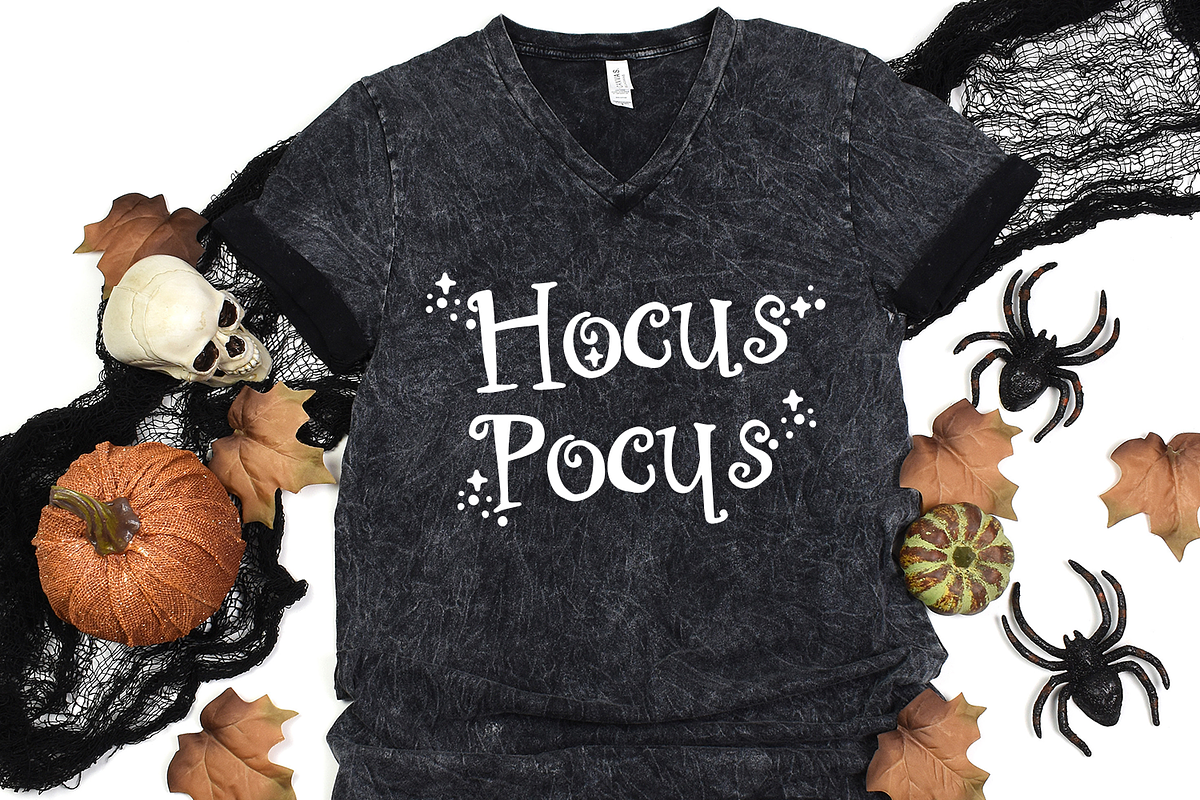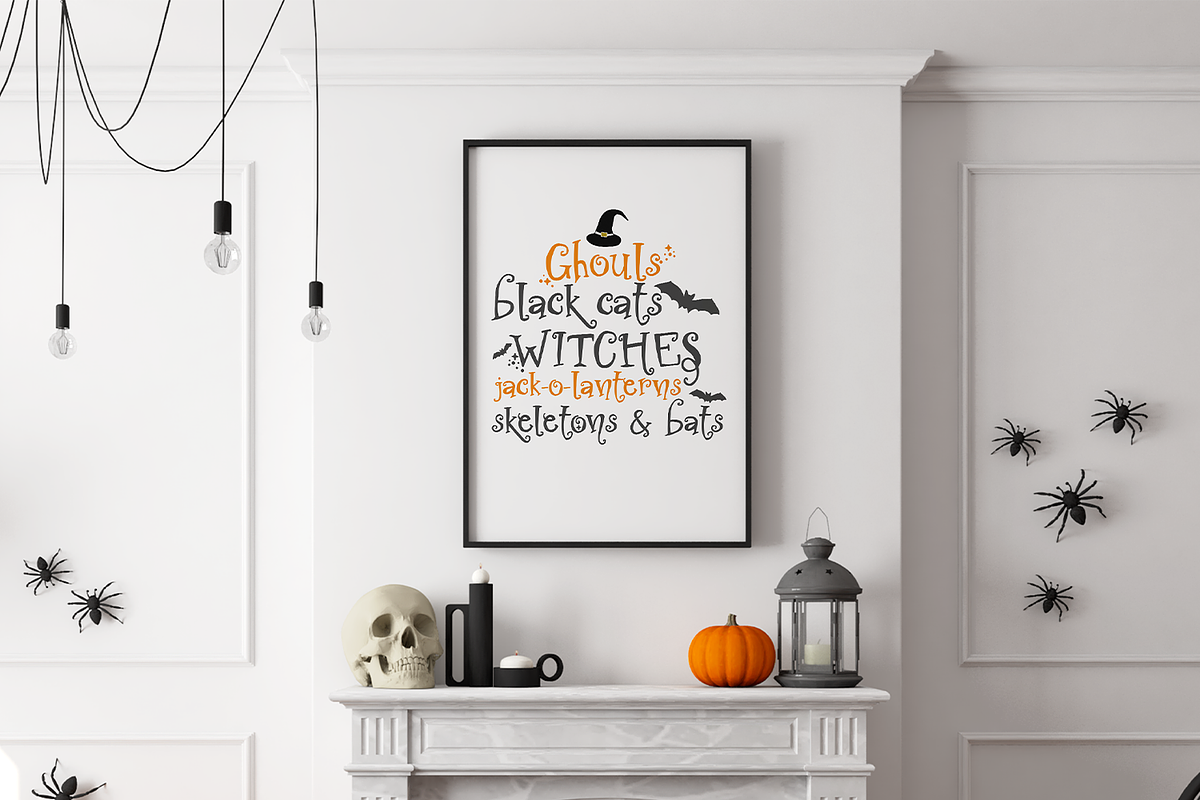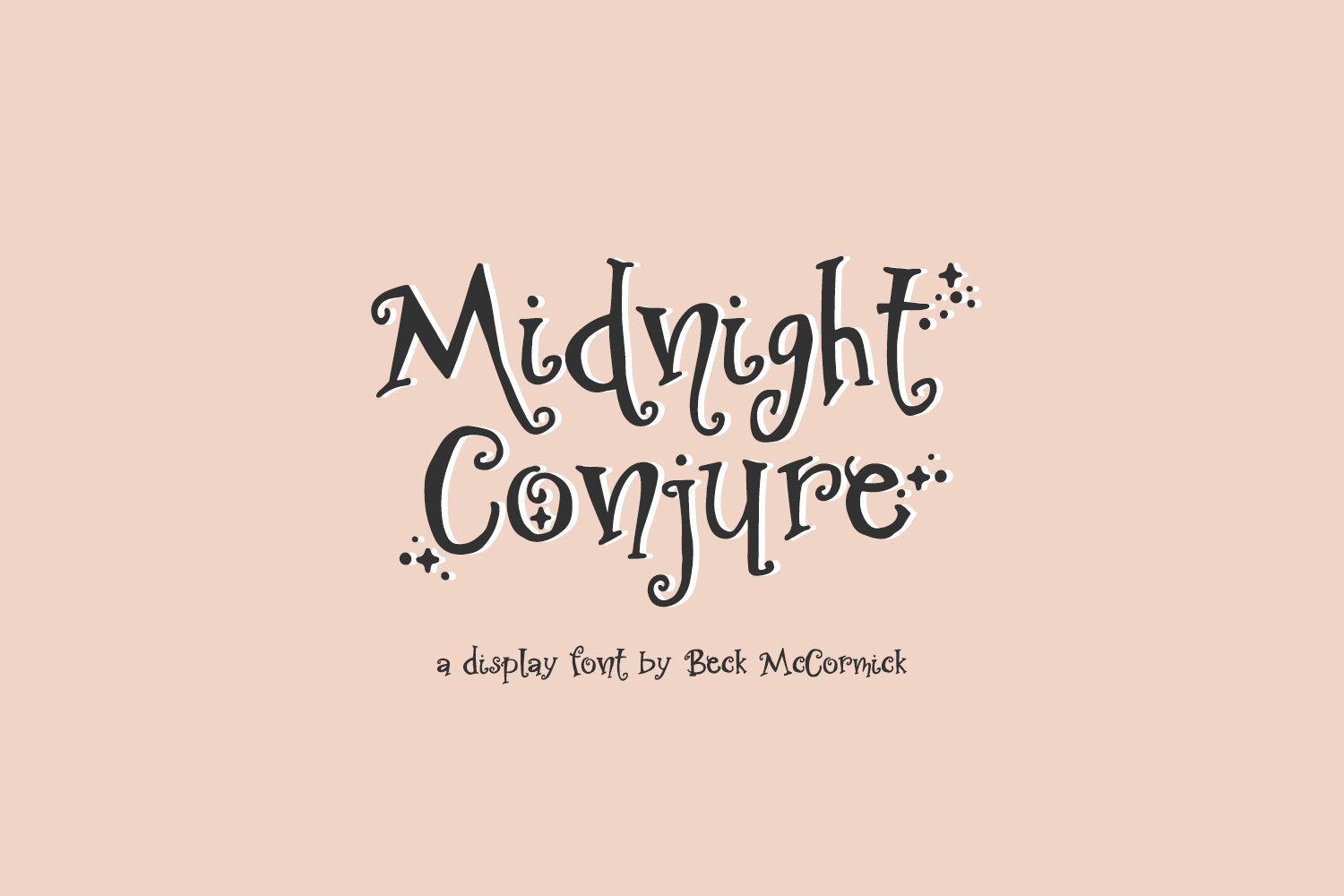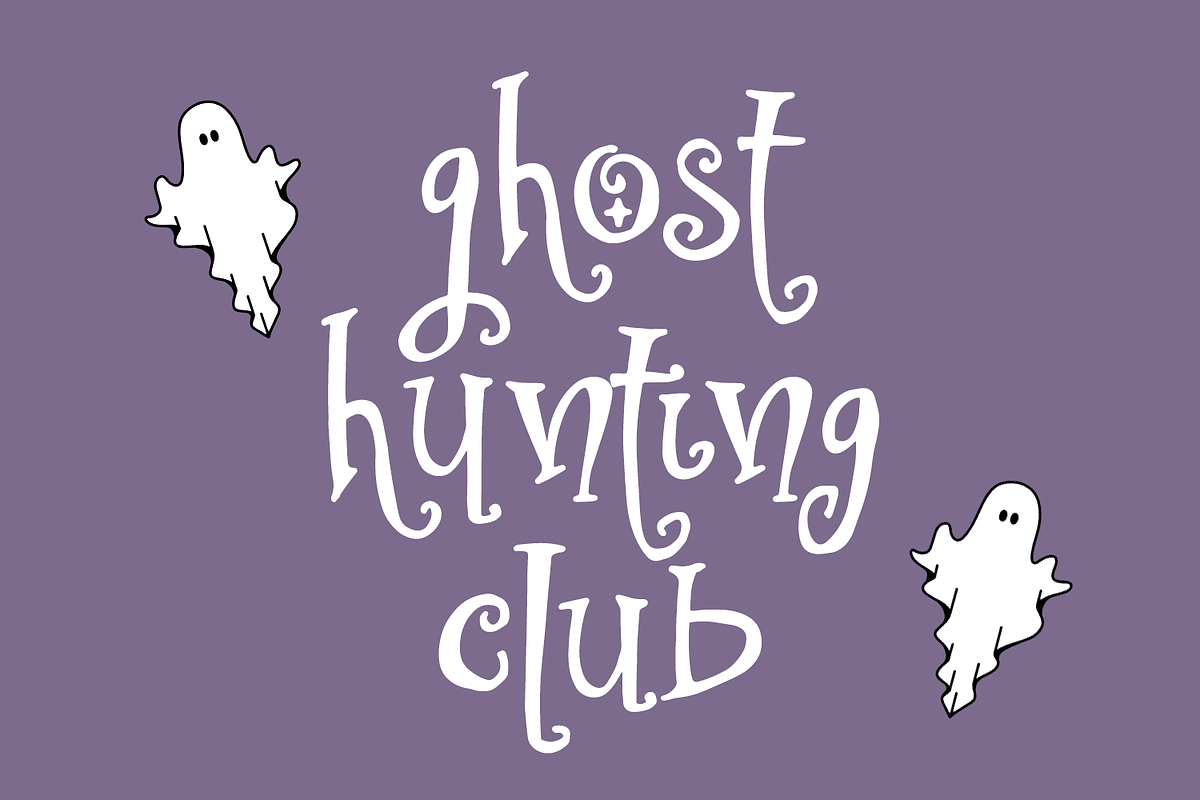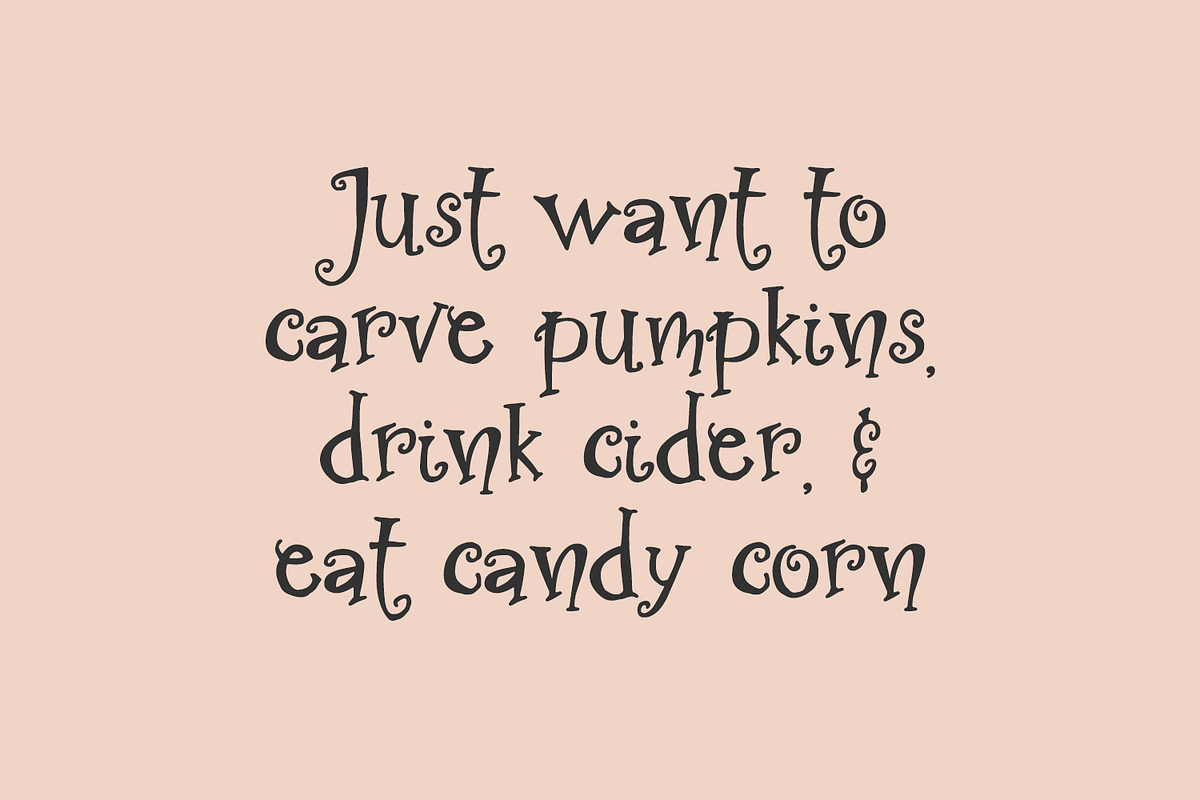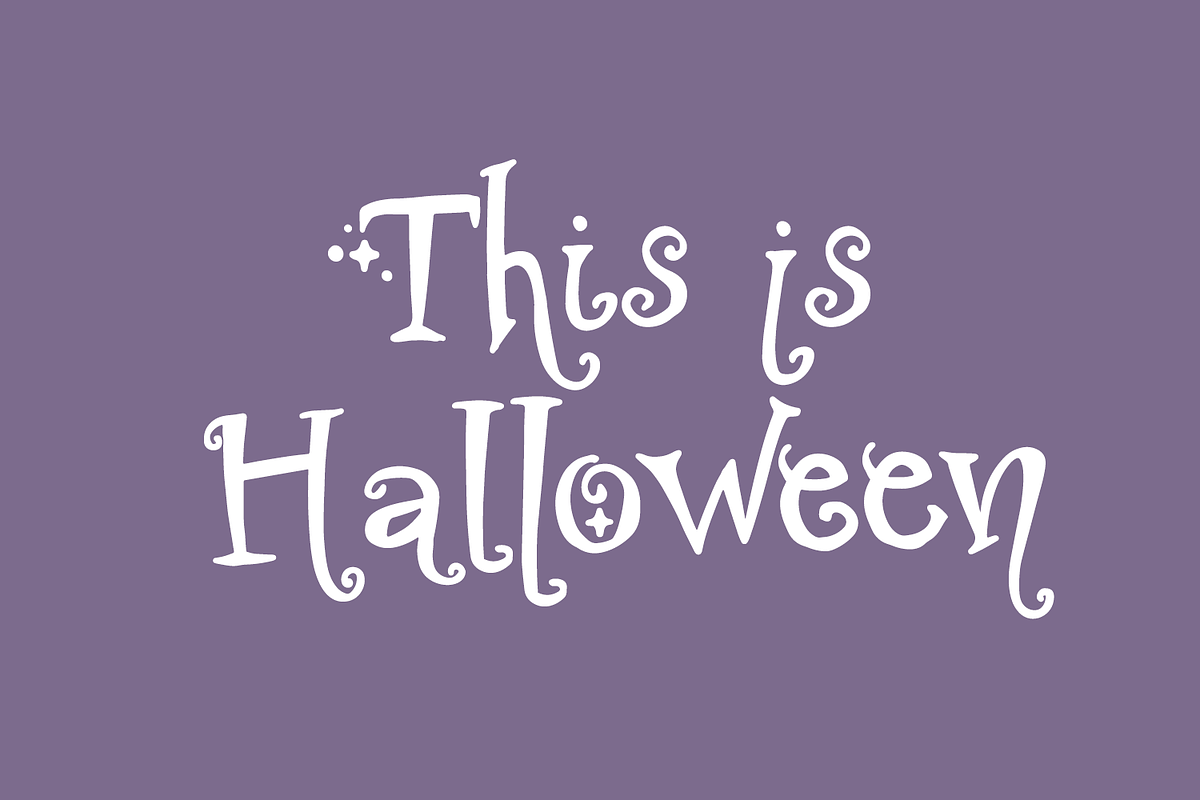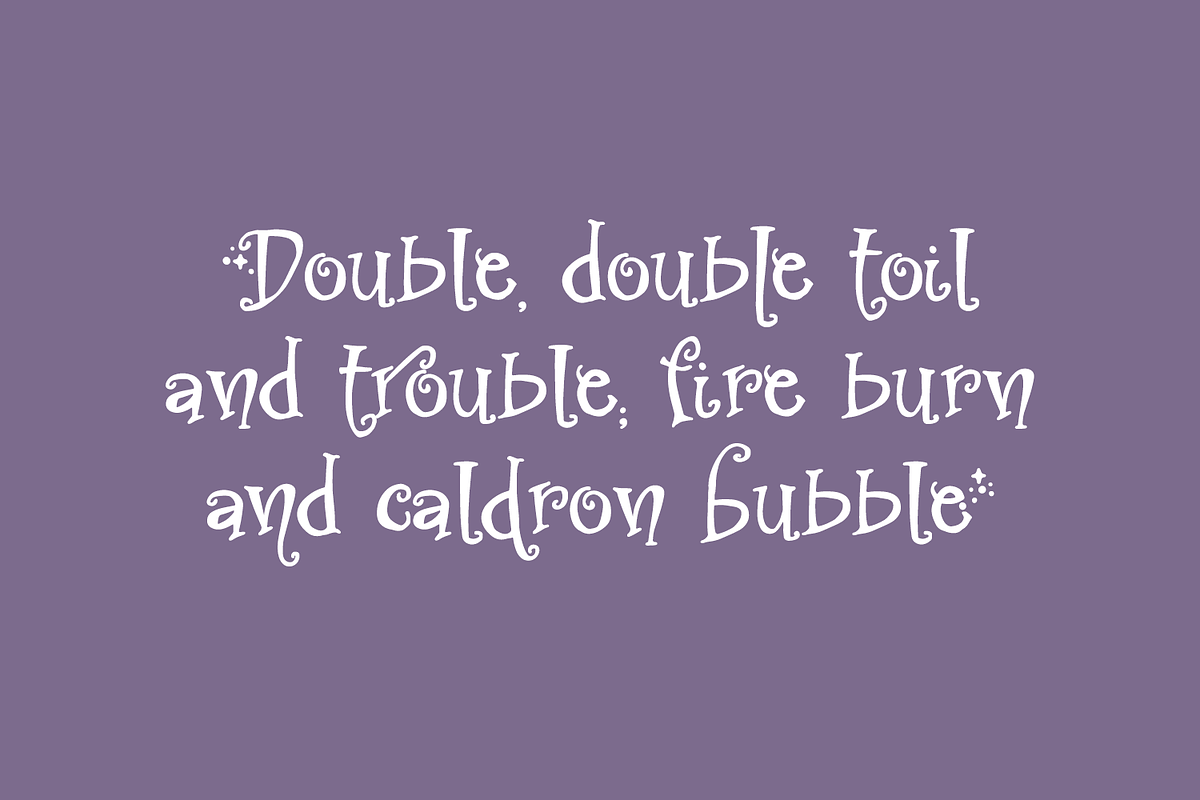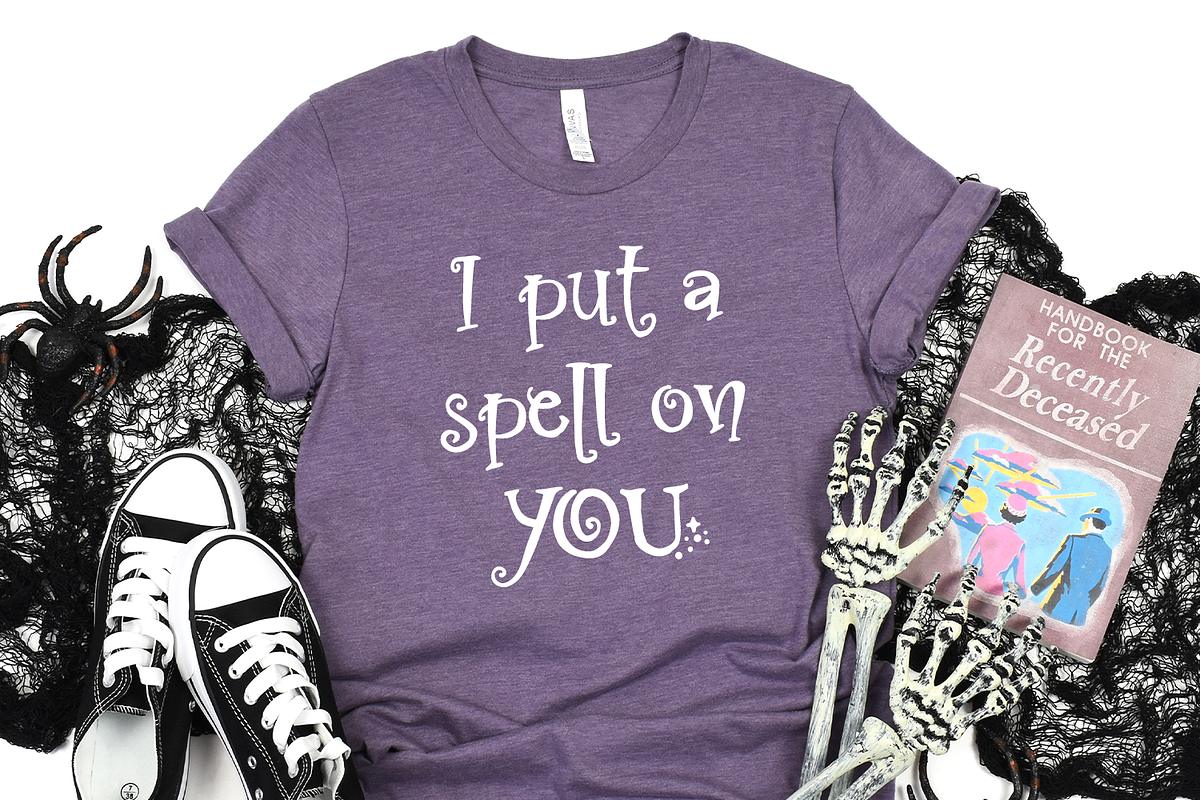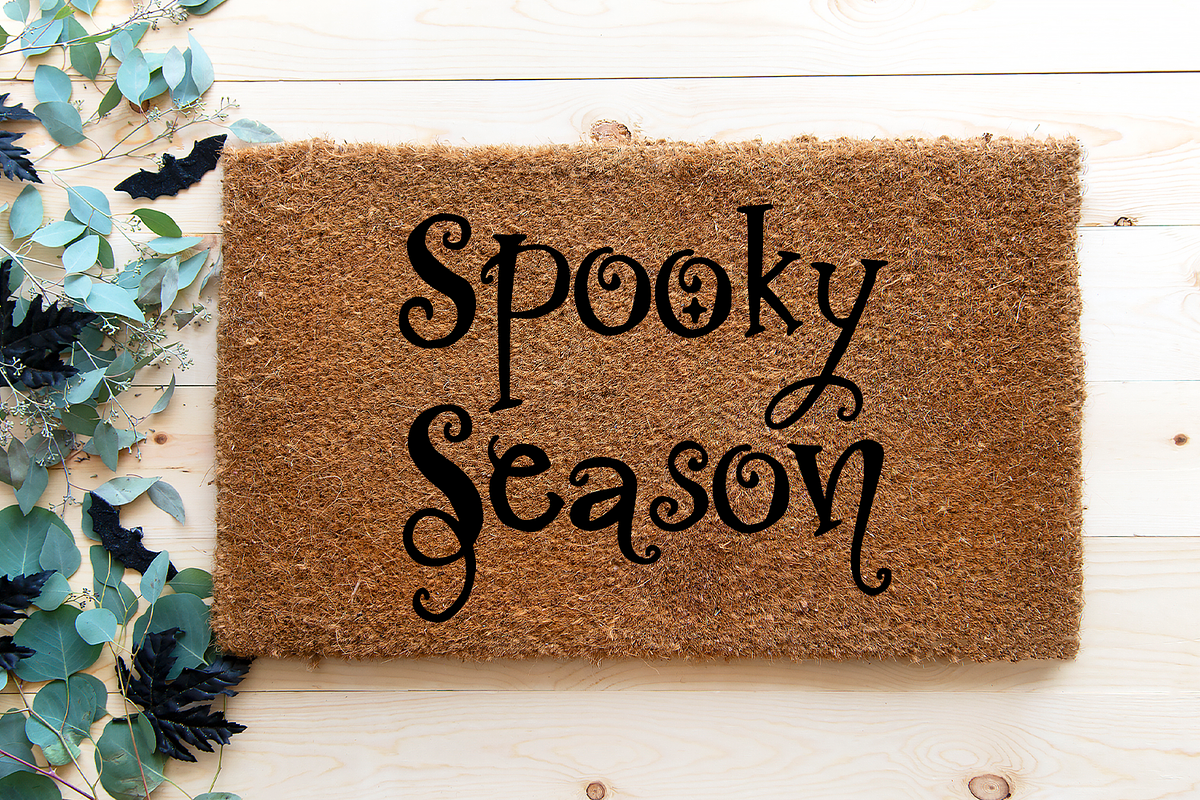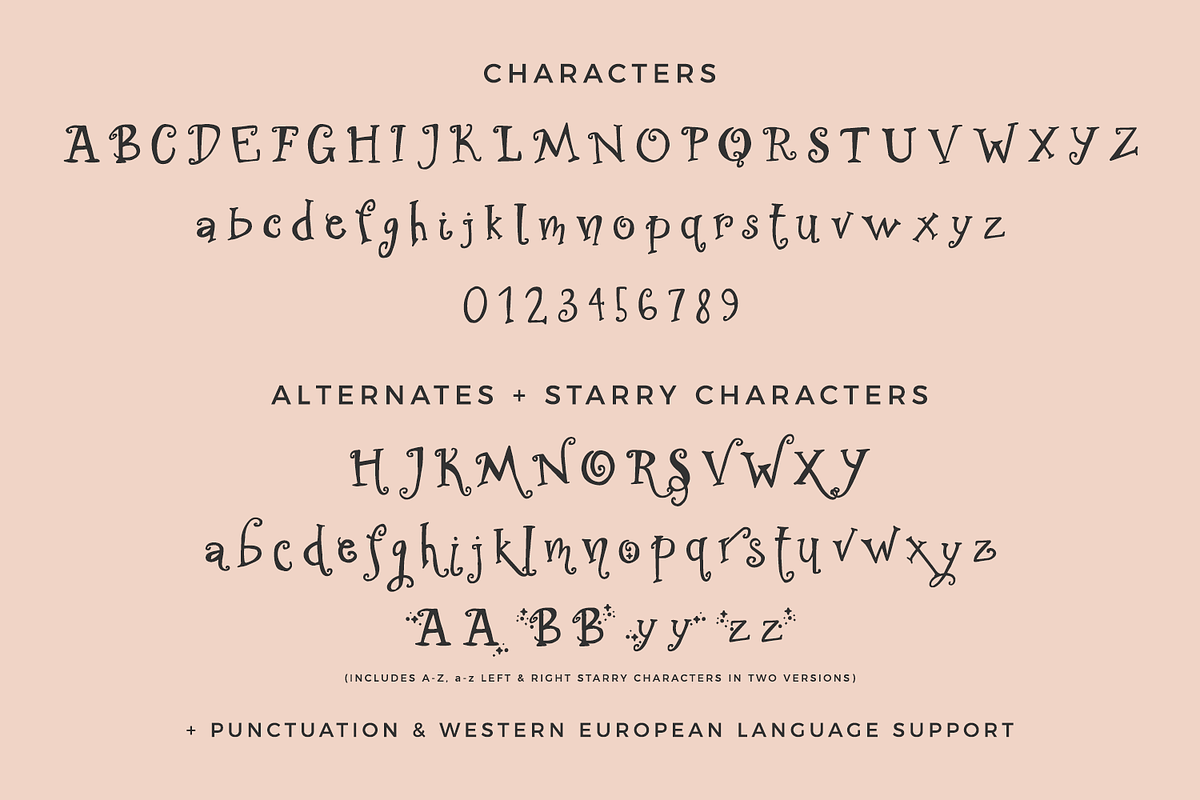
Midnight Conjure - A Halloween Font
Introducing Midnight Conjure, the ultimate Halloween font. Midnight Conjure is a fantastic fit for your spooky designs. This font is well-suited for Halloween crafting projects with your Cricut or Silhouette machine, and can be used for things like shirts, signs, labels, marketing materials, social media, SVG designs, greeting cards & other print items, and even spooky logos & branding. Midnight Conjure would also be a great fit for any whimsical projects that are tarot, magic, witch, or celestial-themed.
There are many alternate characters in Midnight Conjure, so you can customize your text with flourished characters, or characters with stars. This font includes two magical stardust options on each letter (A-Z, a-z) on left & right sides.
Midnight Conjure includes:
- full upper + lowercase characters
- numbers + punctuation
- 264 alternate characters
- Western European language support - English, French, Spanish, Portuguese (Brazil), Portuguese (Portugal), Italian, German (Germany), German (Austria), Dutch, Danish, Swedish, Norwegian (Bokmål and Nynorsk), Finnish, Icelandic, Irish, Welsh